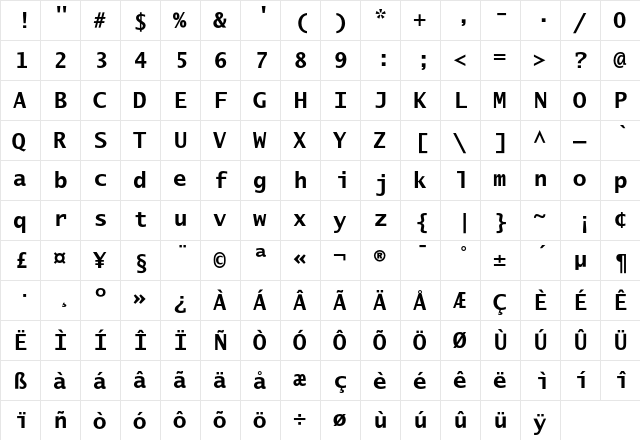
LucidaSansTypeEF Bold
Design Context for LucidaSansTypeEF Typeface
LucidaSansTypeEF takes a measured approach to typography — its balanced proportions and neutral character make it a reliable workhorse for both digital and print work. Its bold stroke weight gives it real presence on the page.
Pro Tip: Pair LucidaSansTypeEF with a font of contrasting weight or personality to build a more expressive typographic hierarchy.